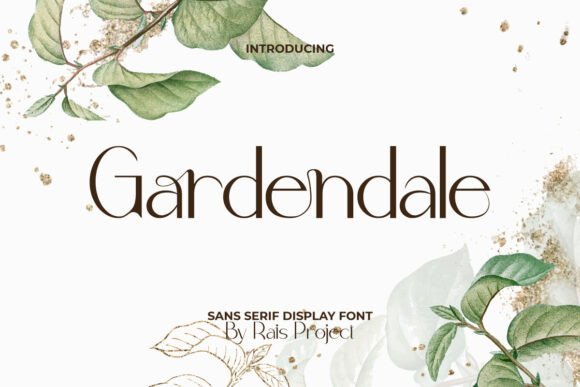
Introduction to Gardendale Font
Gardendale is a modern stylish sans serif display font.
A stunning modern sophisticated sans serif display font with beautiful looks This font will make your designs look elegant, feminine, modern, and timeless at the same time.
Key Features of Gardendale Font
Why Choose Gardendale Font?
Gardendale Font offers exceptional quality and versatility, making it a valuable addition to your design toolkit. Whether you’re creating for personal projects or commercial use, Gardendale Font delivers professional results.